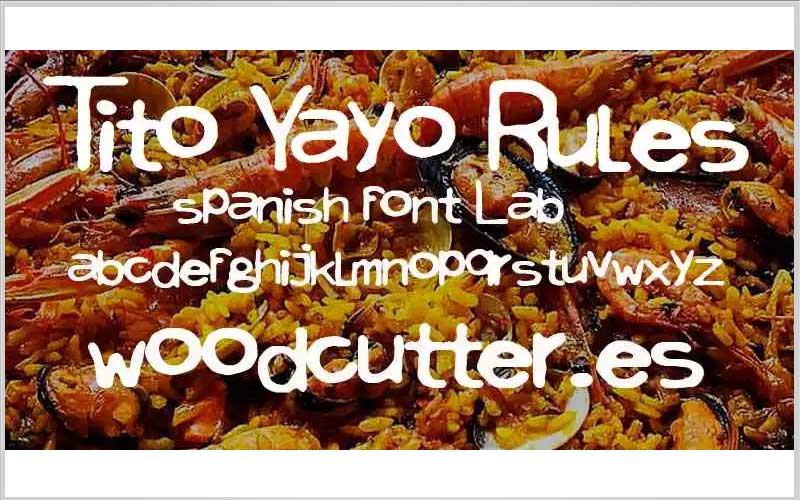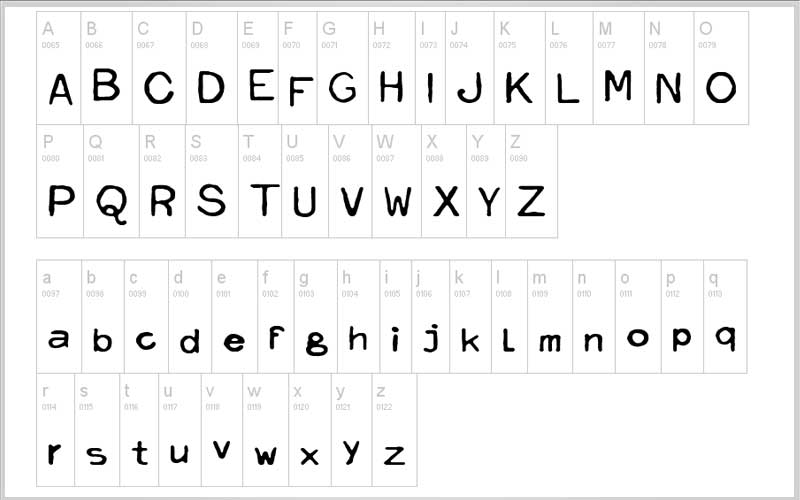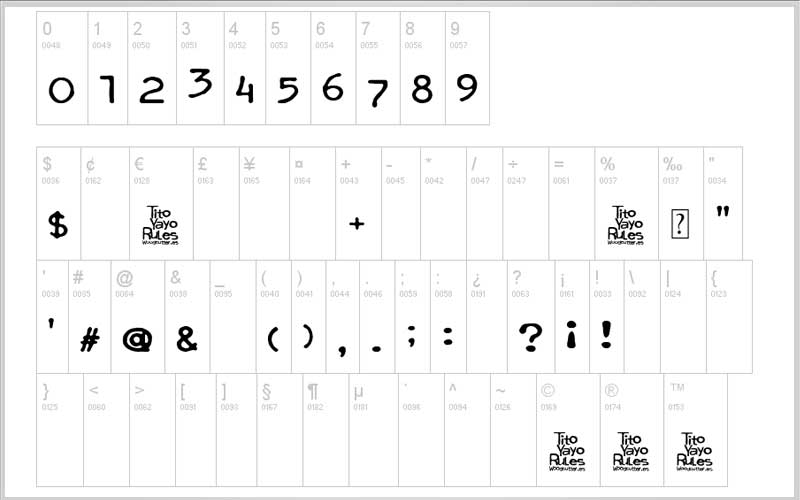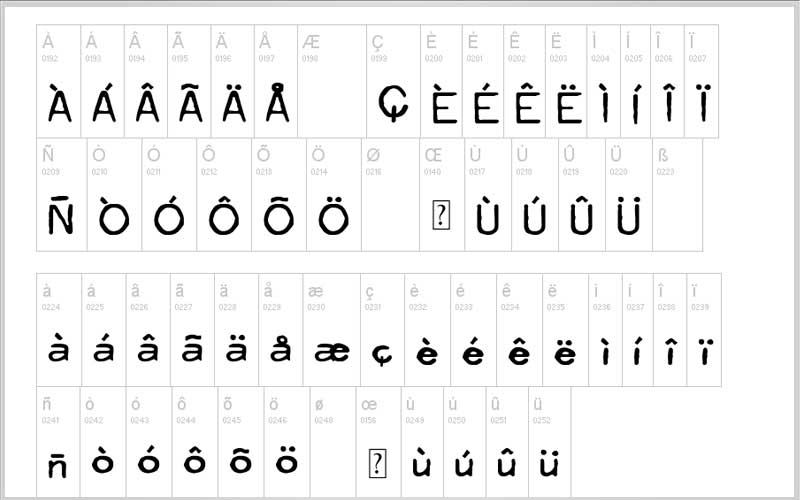
Tito Yayo Rules is a high quality Cartoon font that is designed by Woodcutter and is available for free download and personal use. The free version provides all uppercase and lowercase letters and a few special characters too.